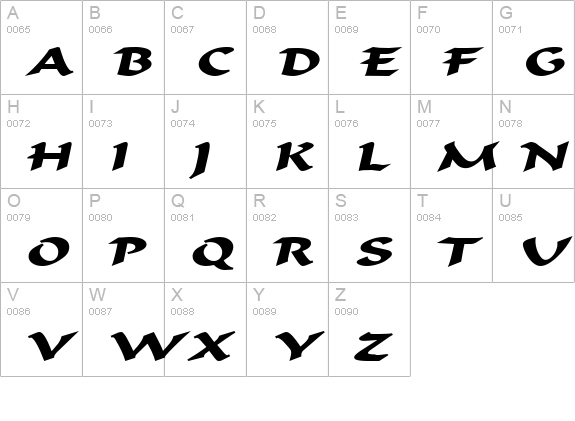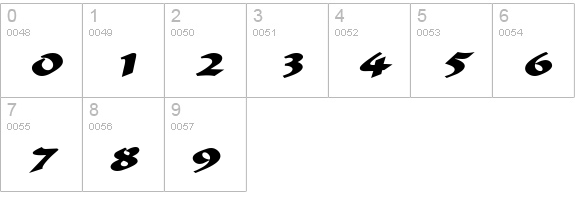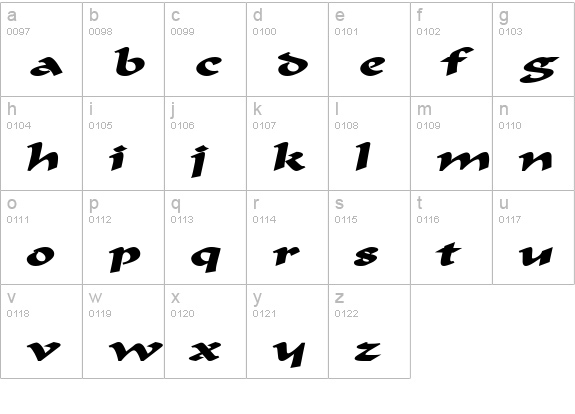
Flat Brush Extended BoldItalic Font Details
Flat Brush Extended BoldItalic is a distinctive, extended-width variant in the Flat typeface family \xE2\x80\x94 well suited to design and typography projects.
Introducing Flat Brush Extended BoldItalic font, a striking and dynamic typeface designed to make a bold statement in your creative projects. This free-spirited font exudes modern elegance with its sleek lines and distinctive brush strokes, ideal for adding a touch of sophistication to any design. The combination of boldness and italic style creates a visually appealing contrast that commands attention and stands out from the crowd. Flat Brush Extended BoldItalic font is perfect for branding, signage, packaging, posters, and more, offering versatility and creativity for your design needs. Whether you're looking to make a bold statement or add a touch of flair to your projects, this font has you covered. Best of all, this font is available for free download at FontsMarket.com, making it easily accessible for designers and creatives alike to elevate their work with this stunning typeface. Don't miss out on the opportunity to enhance your designs with the captivating Flat Brush Extended BoldItalic font!